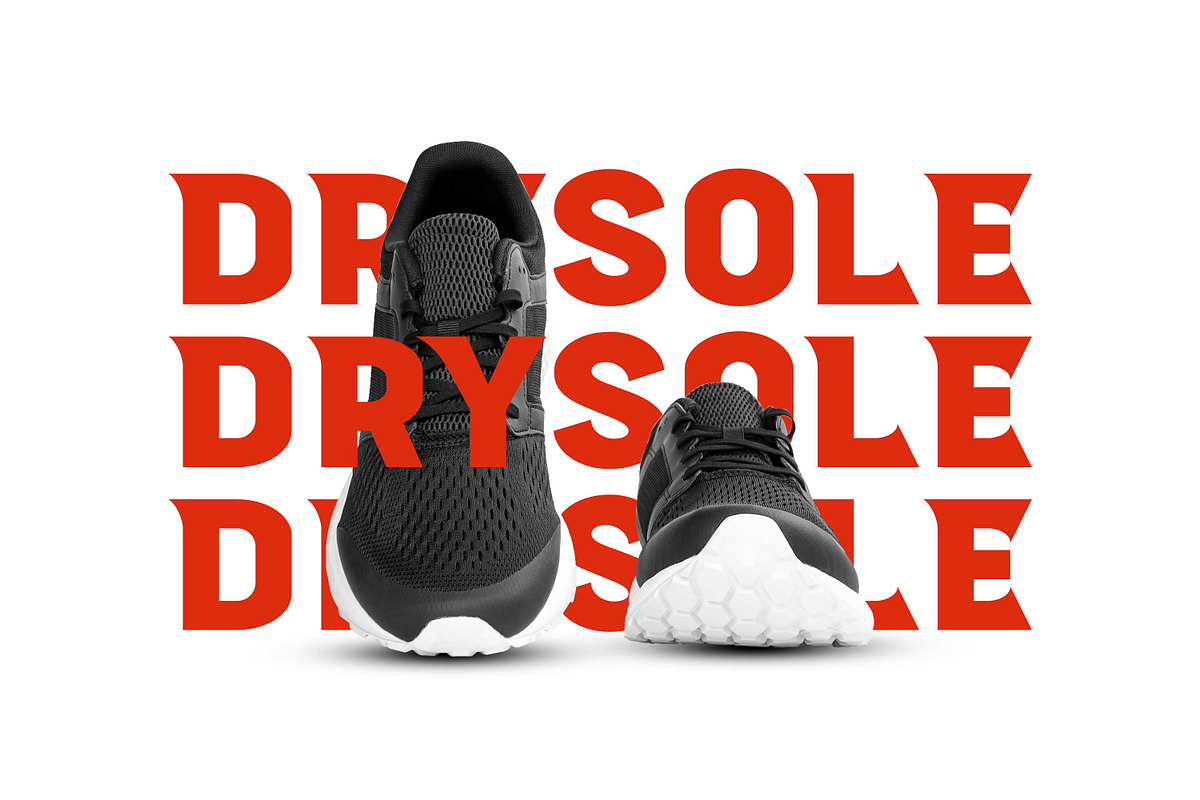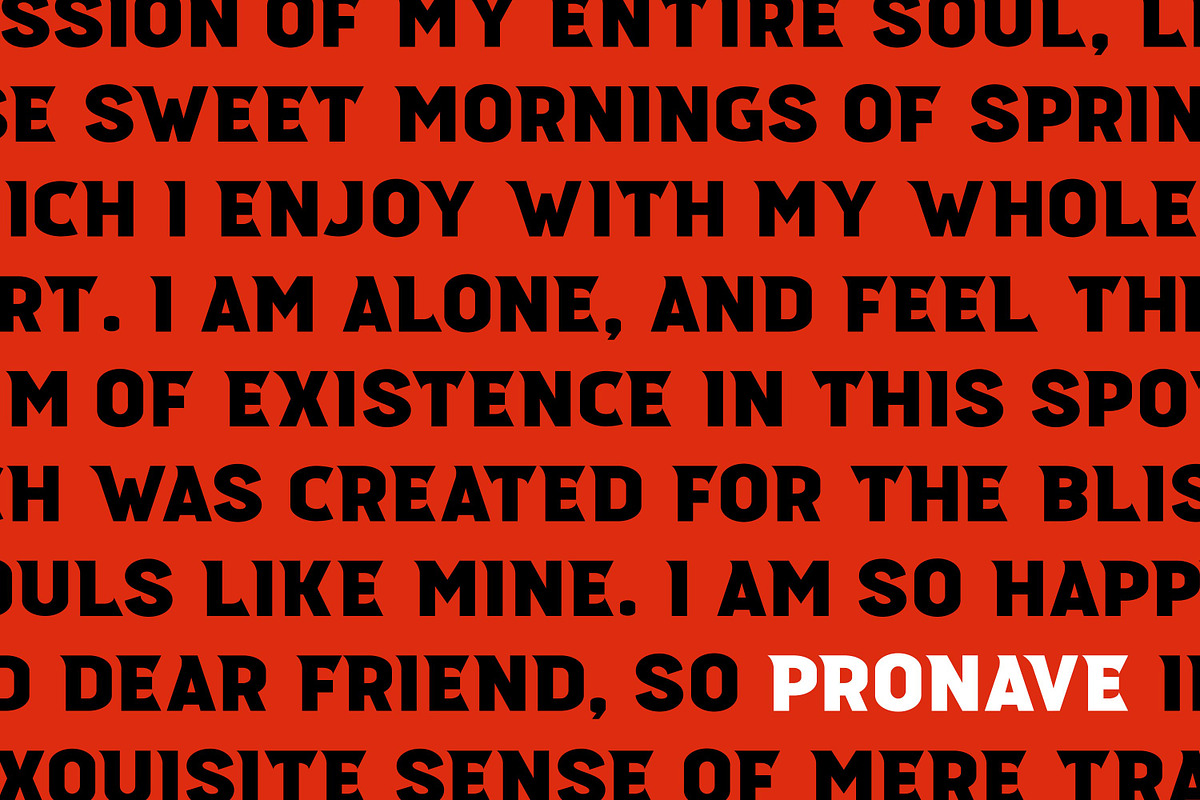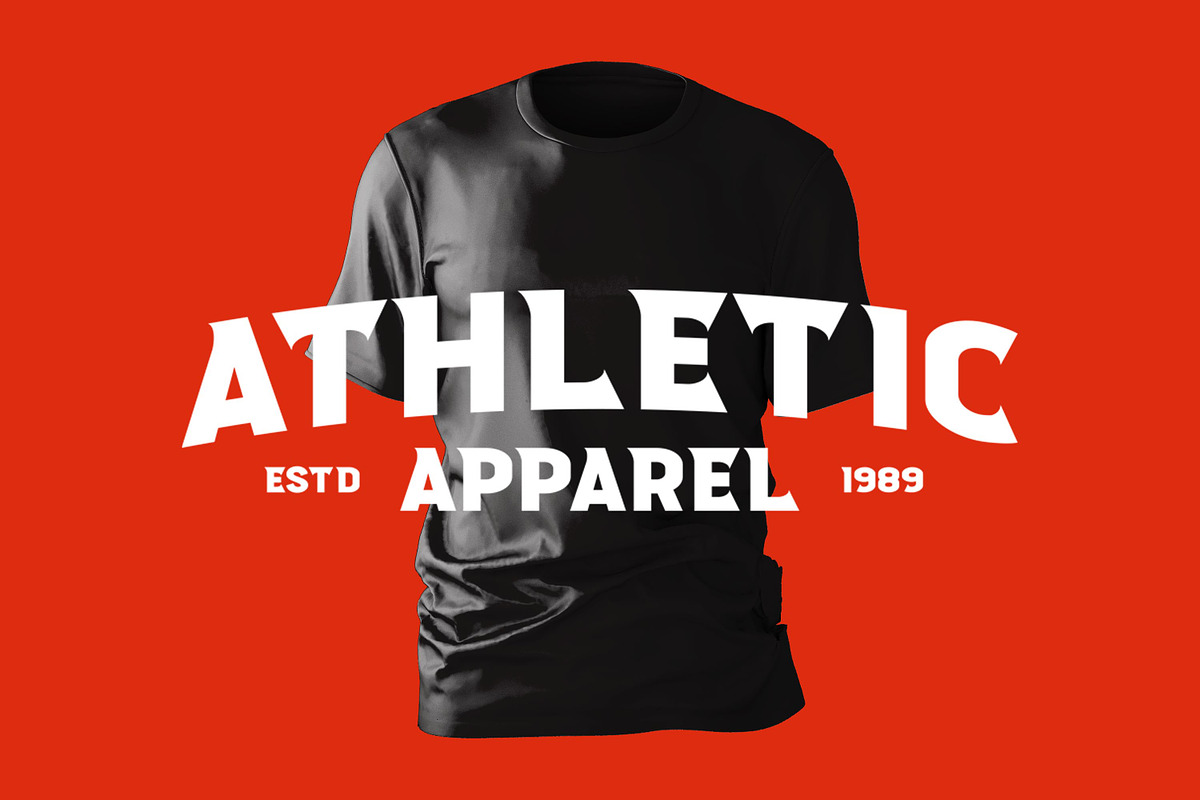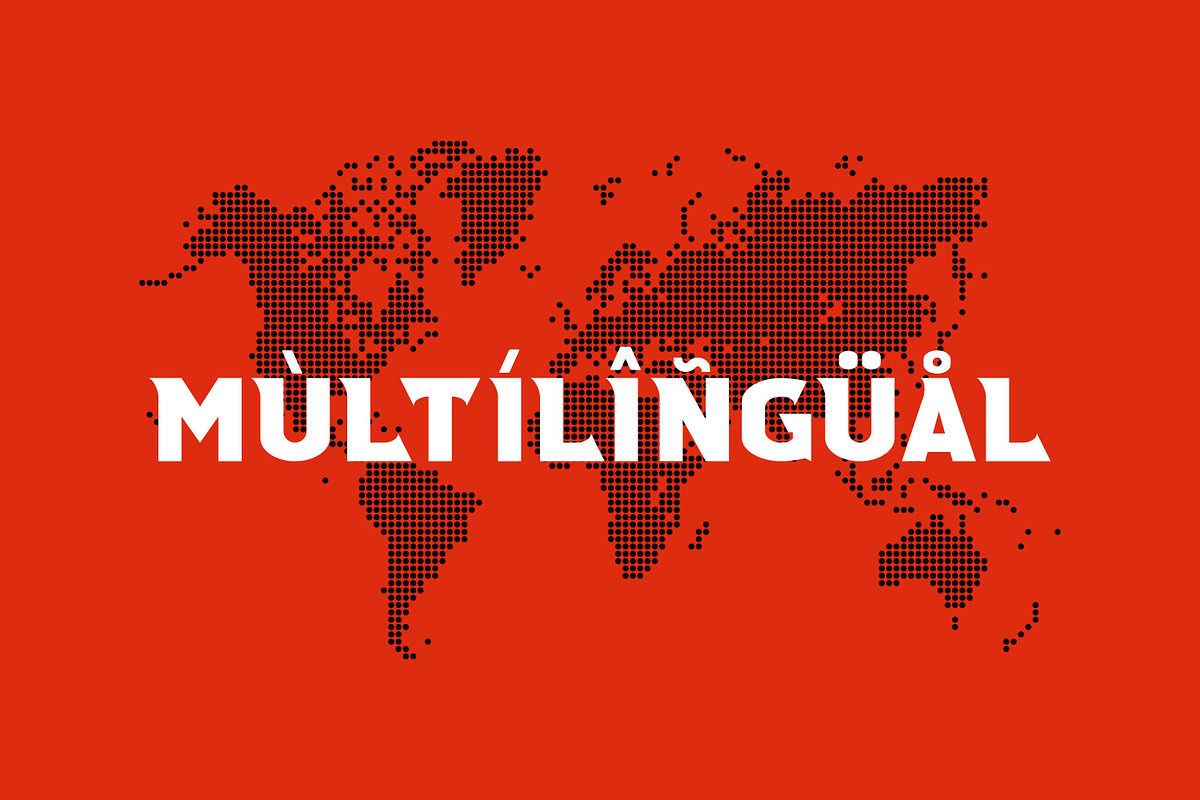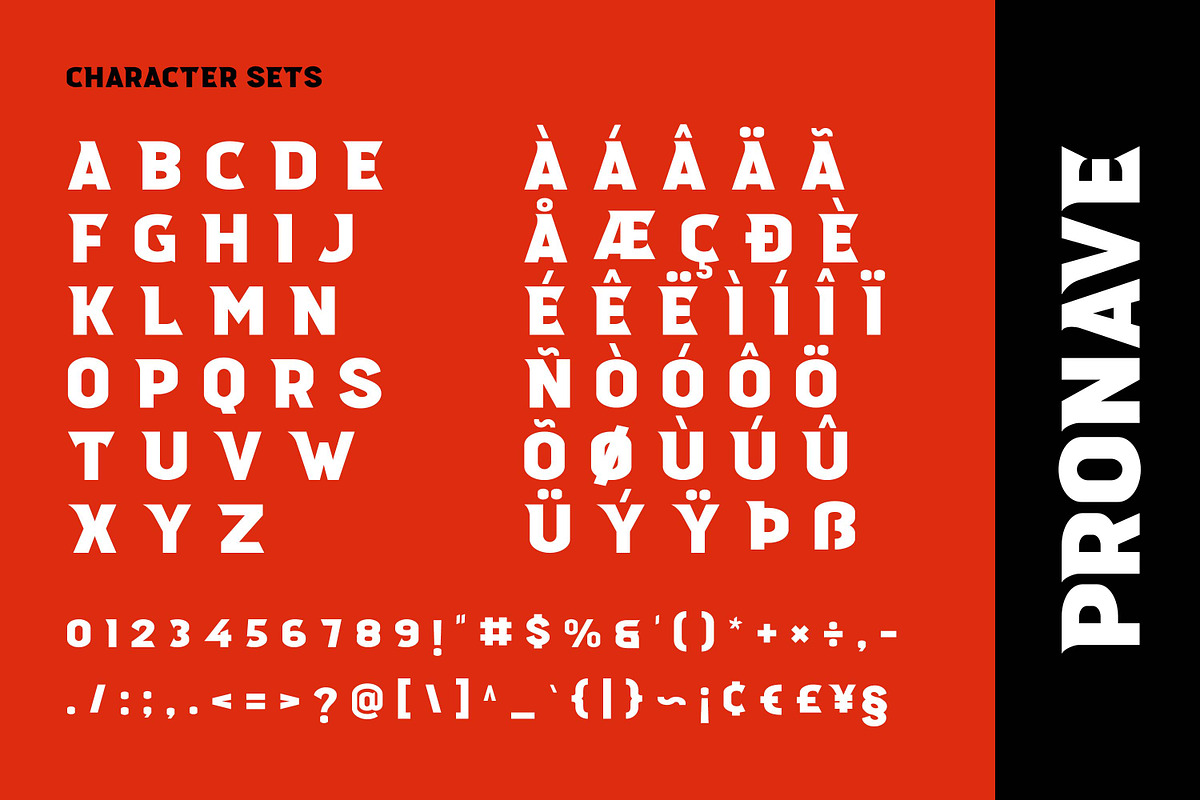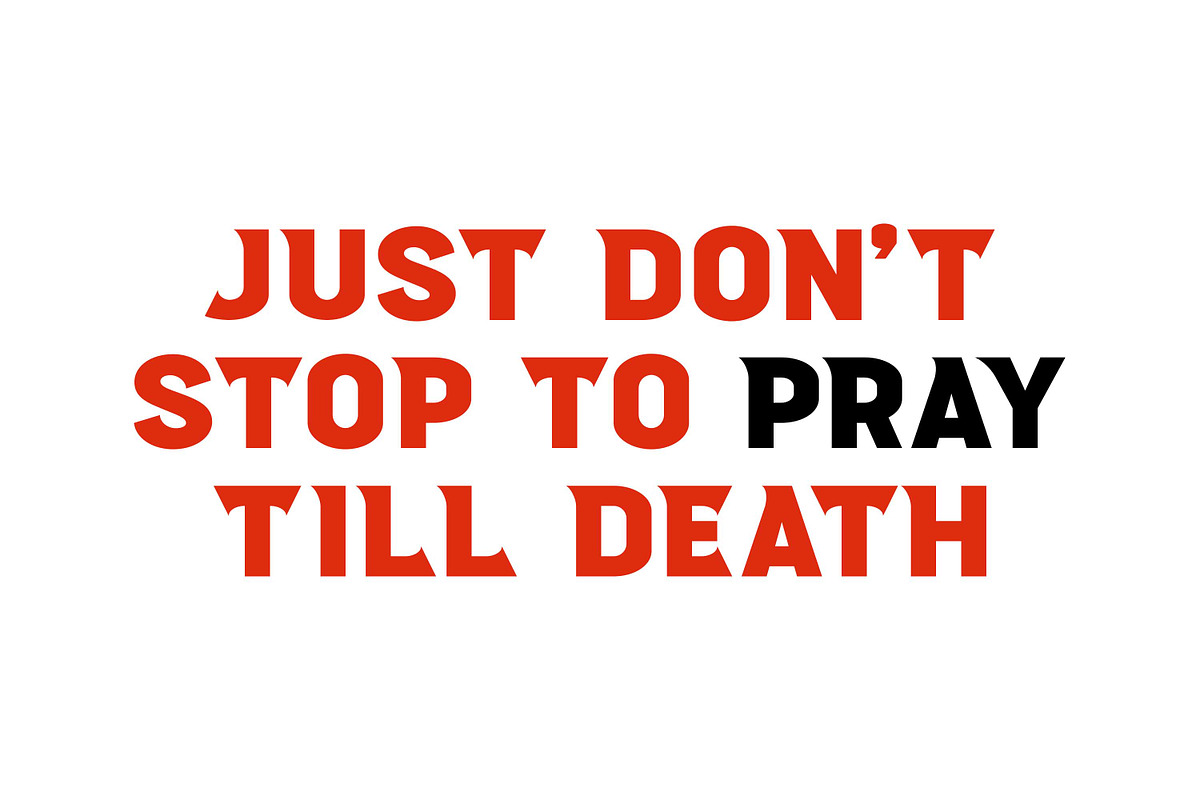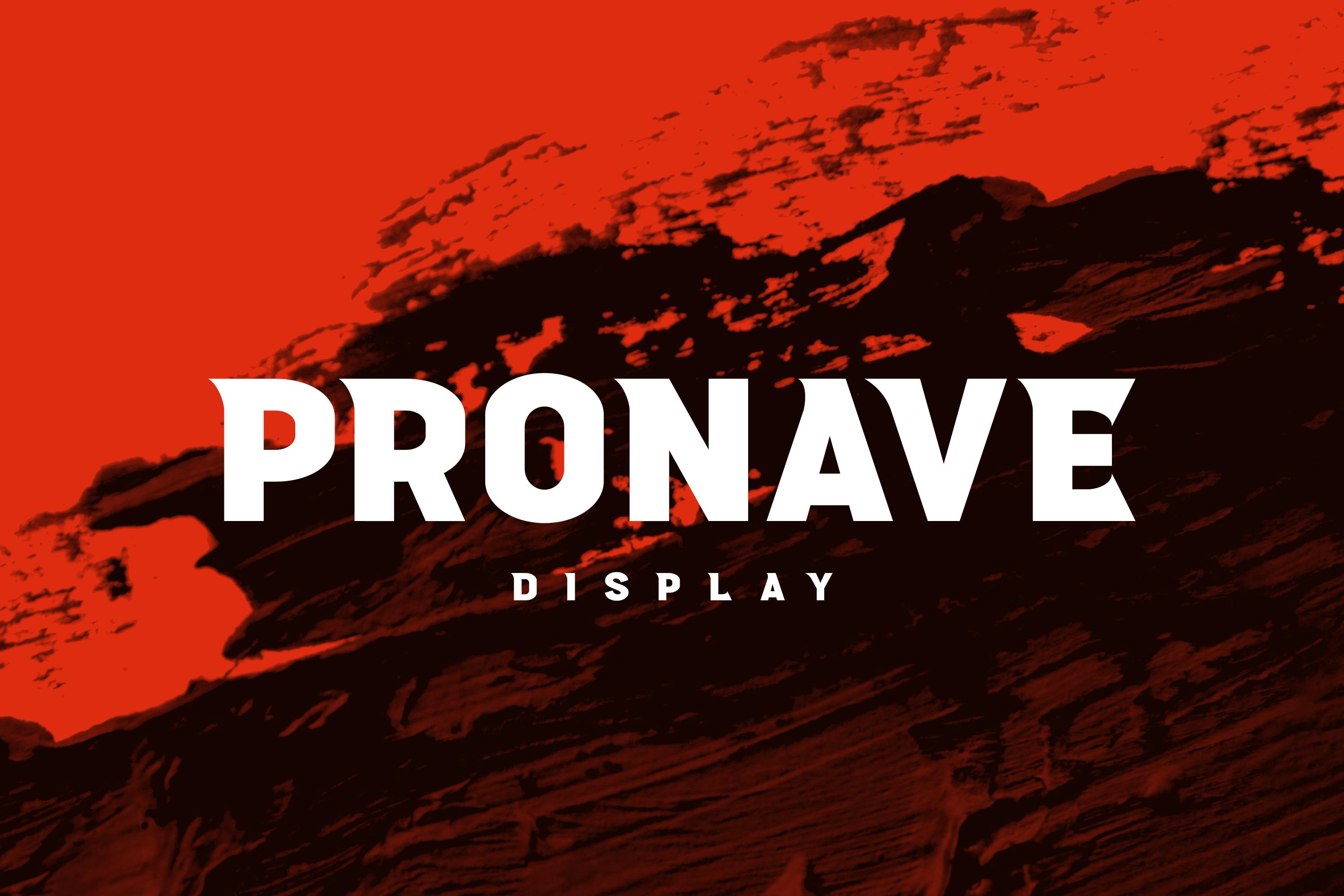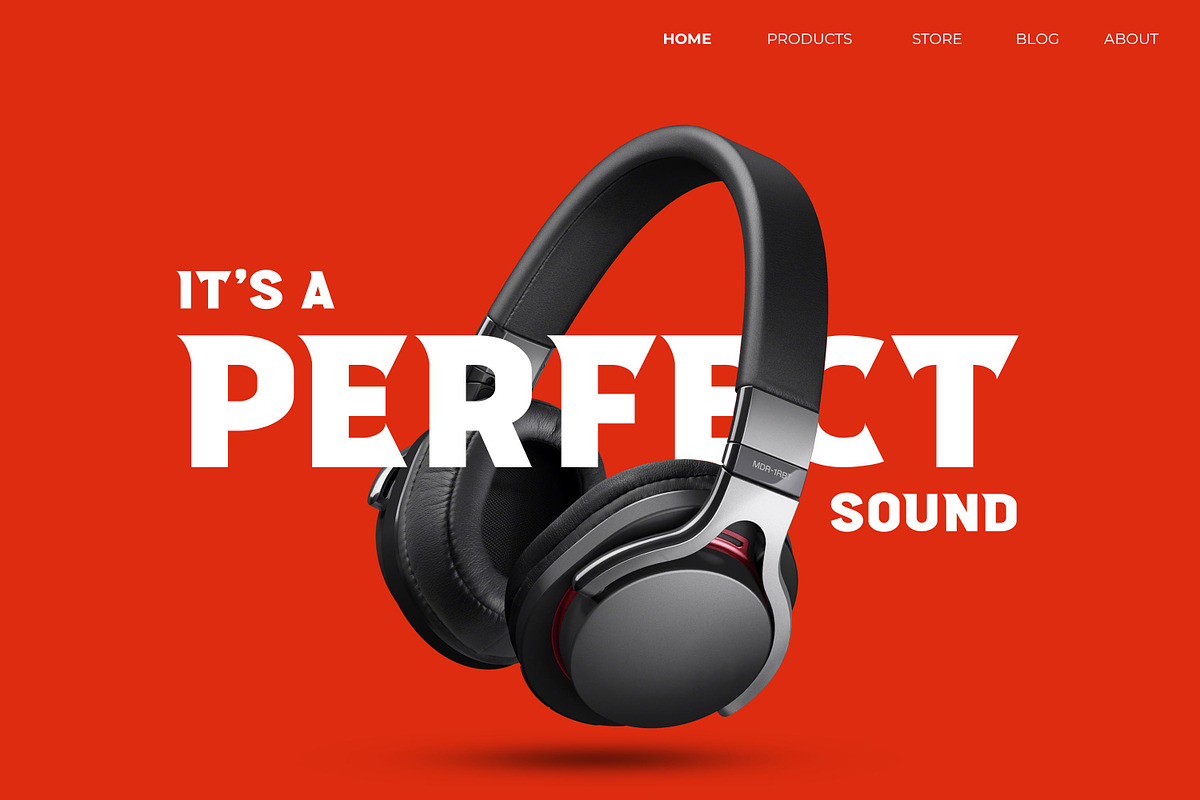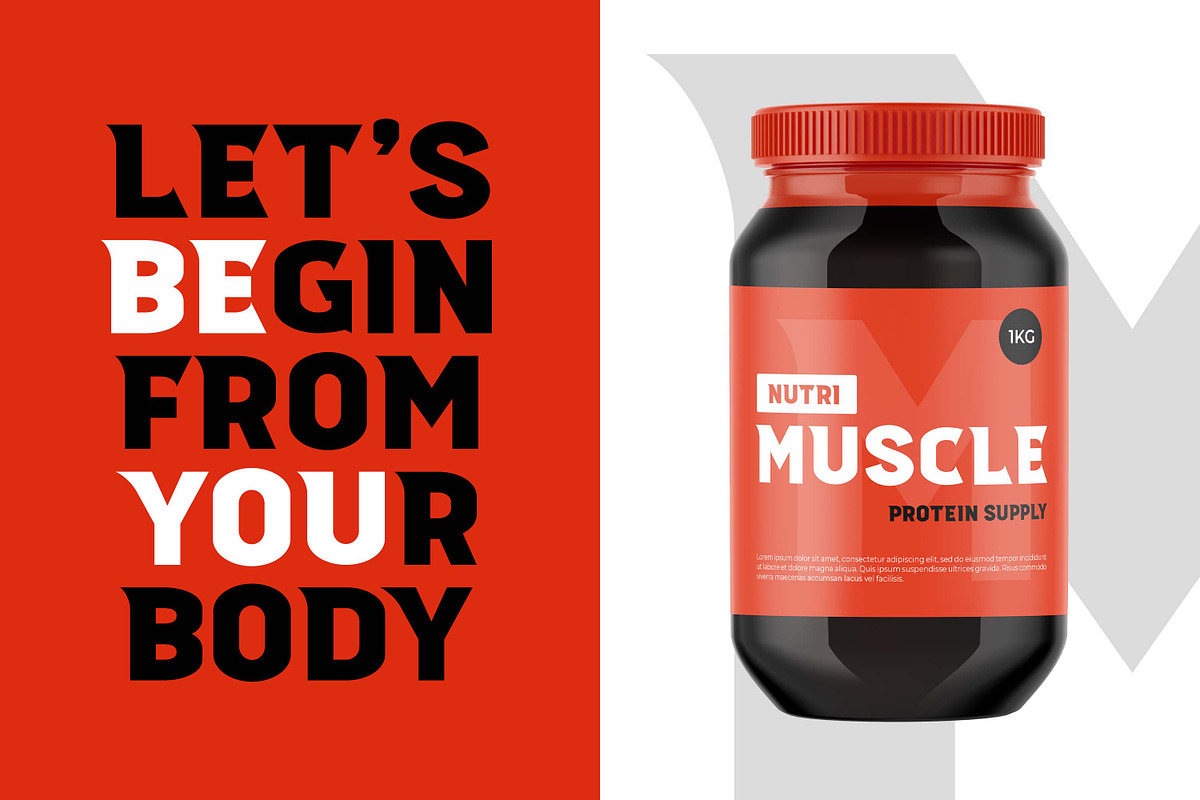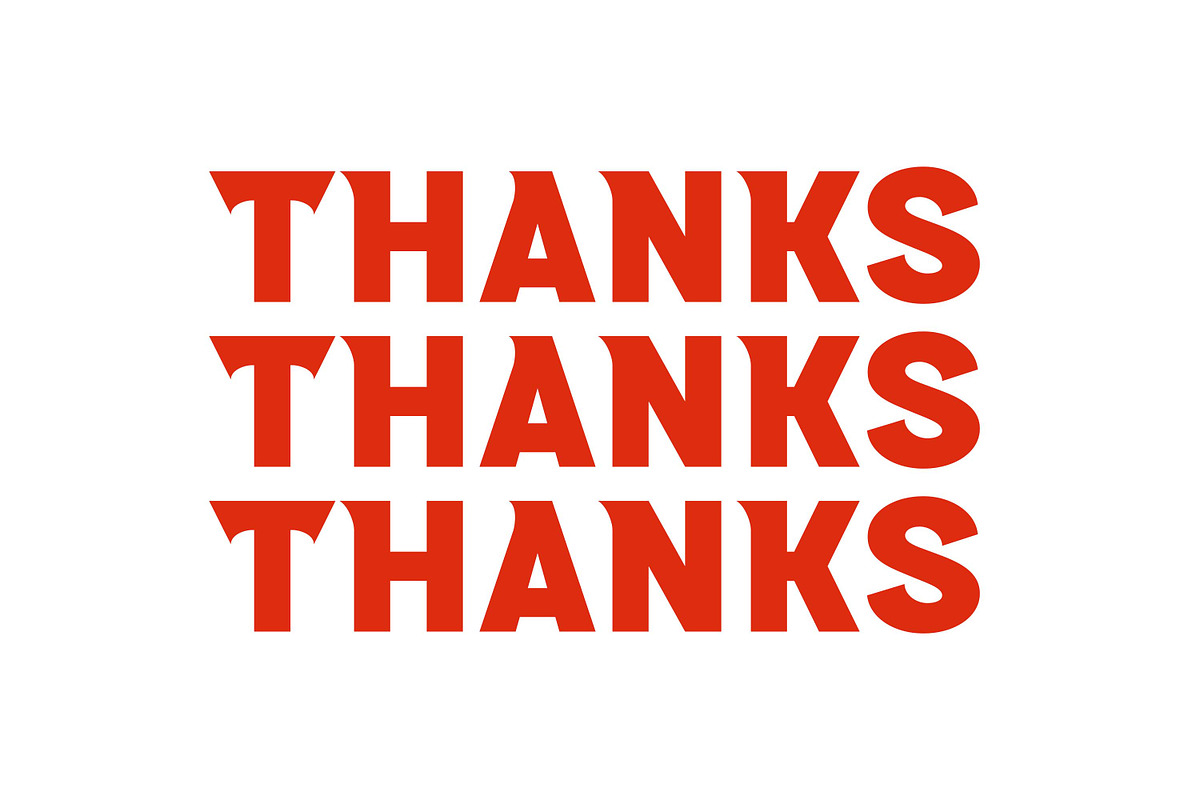
Pronave - Display Font
Introducing Pronave - Display with strong and challenging nuances. very suitable for the title, logo, typography, clothes, magazines, brochures, packaging and much more for your design needs, making your designs more modern and professional